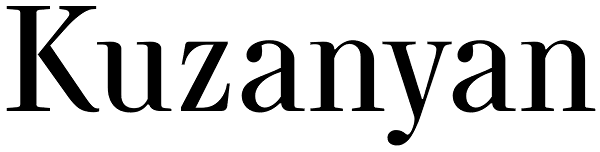
Kuzanyan
The hand composition typeface was created at Polygraphmash type design bureau in 1959 by a well-known Soviet book and type designer Pavel Kuzanyan (1901-1992). It was reproduced in the 1960s for slugcasting and machine display composition. Sharp...
Kuzanyan
Kuzanyan Italic